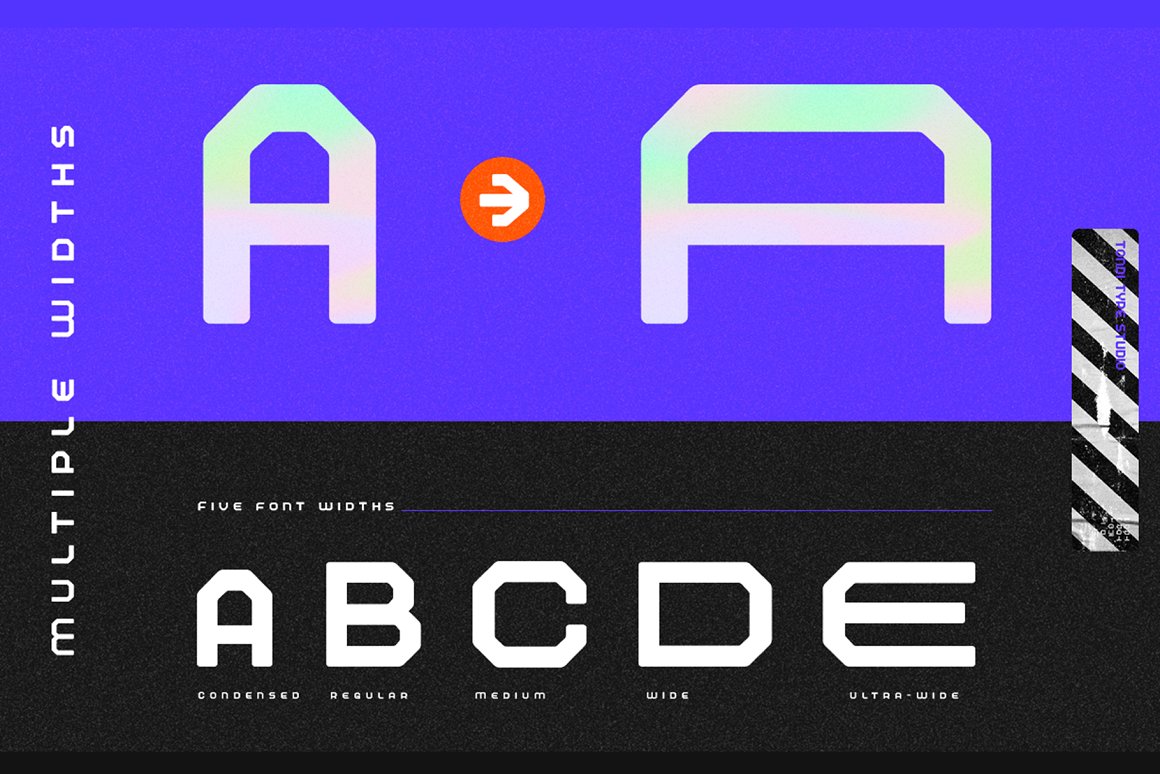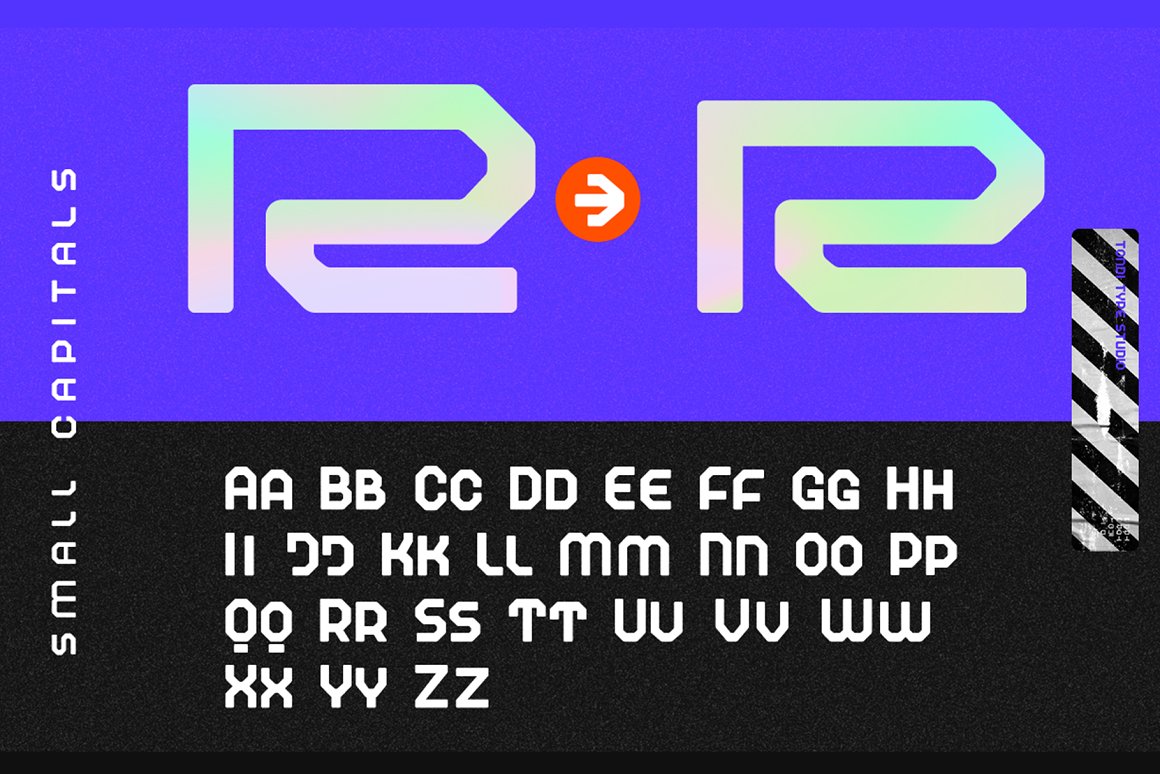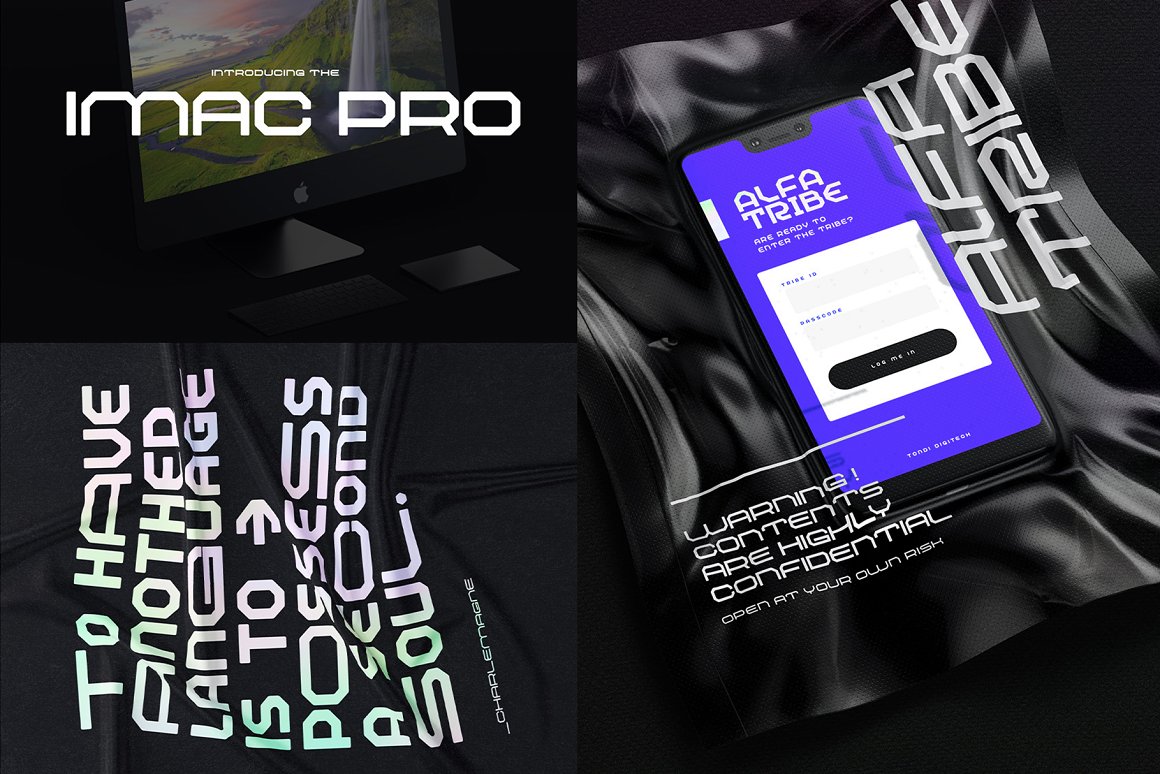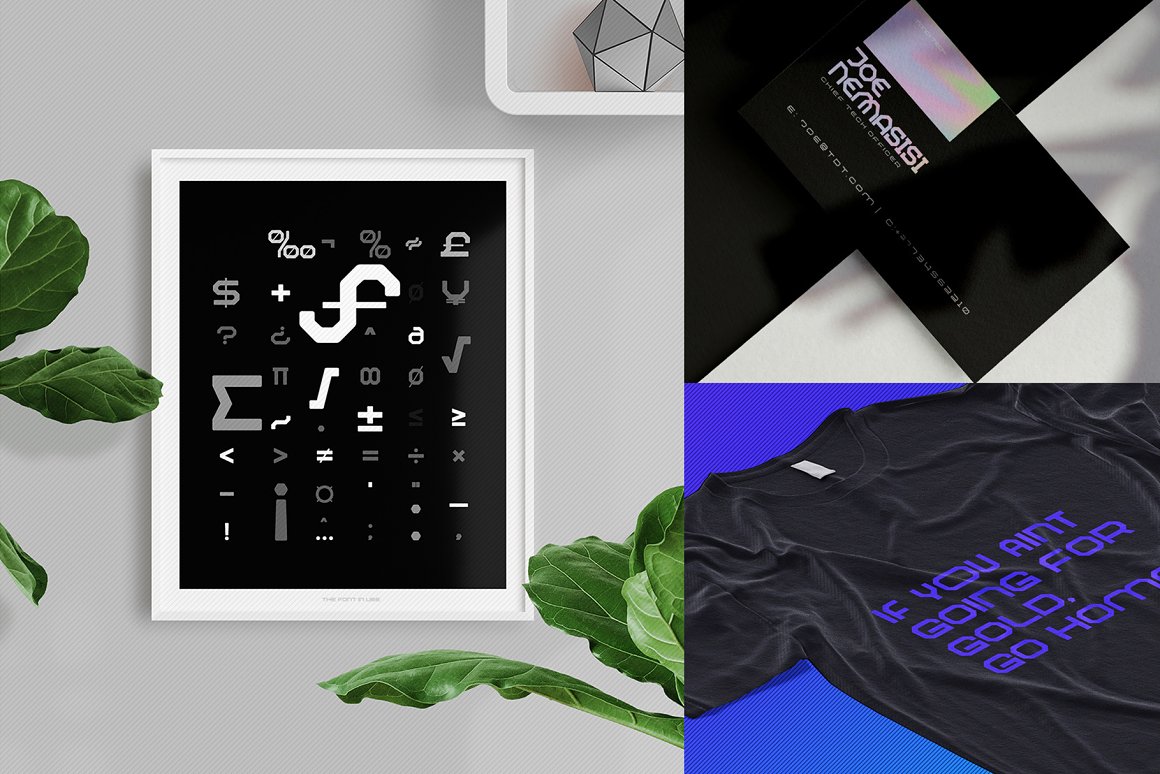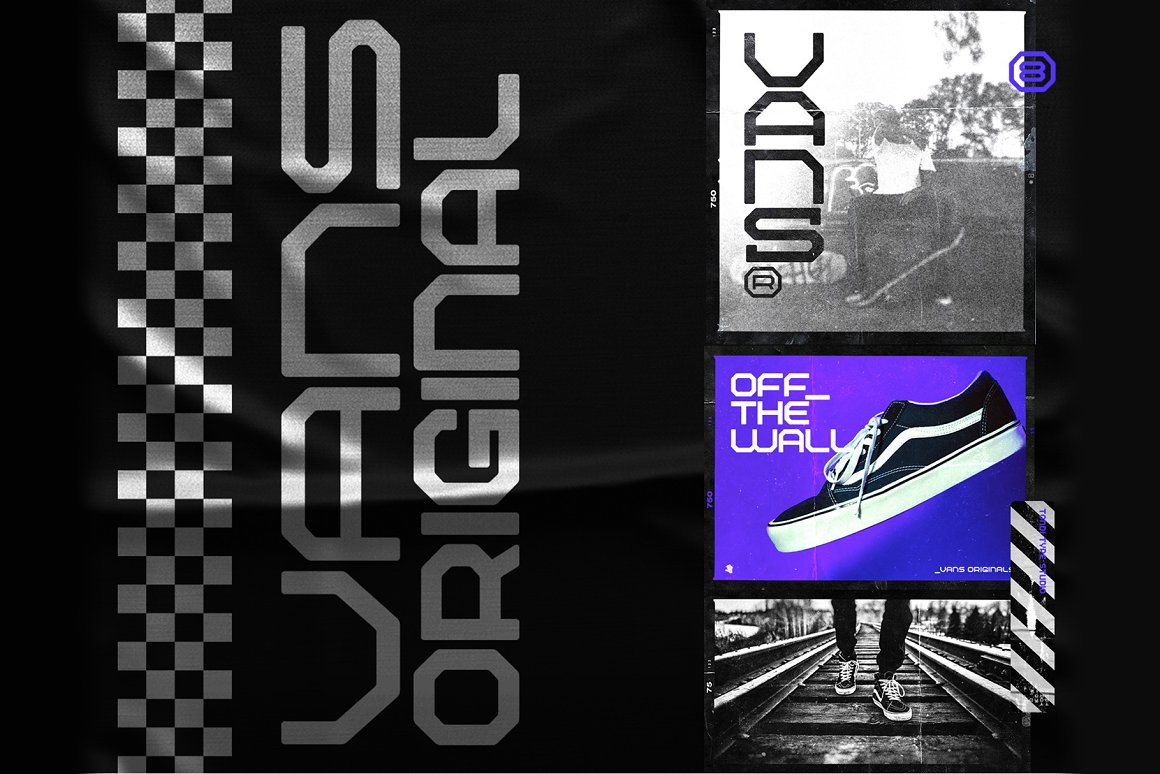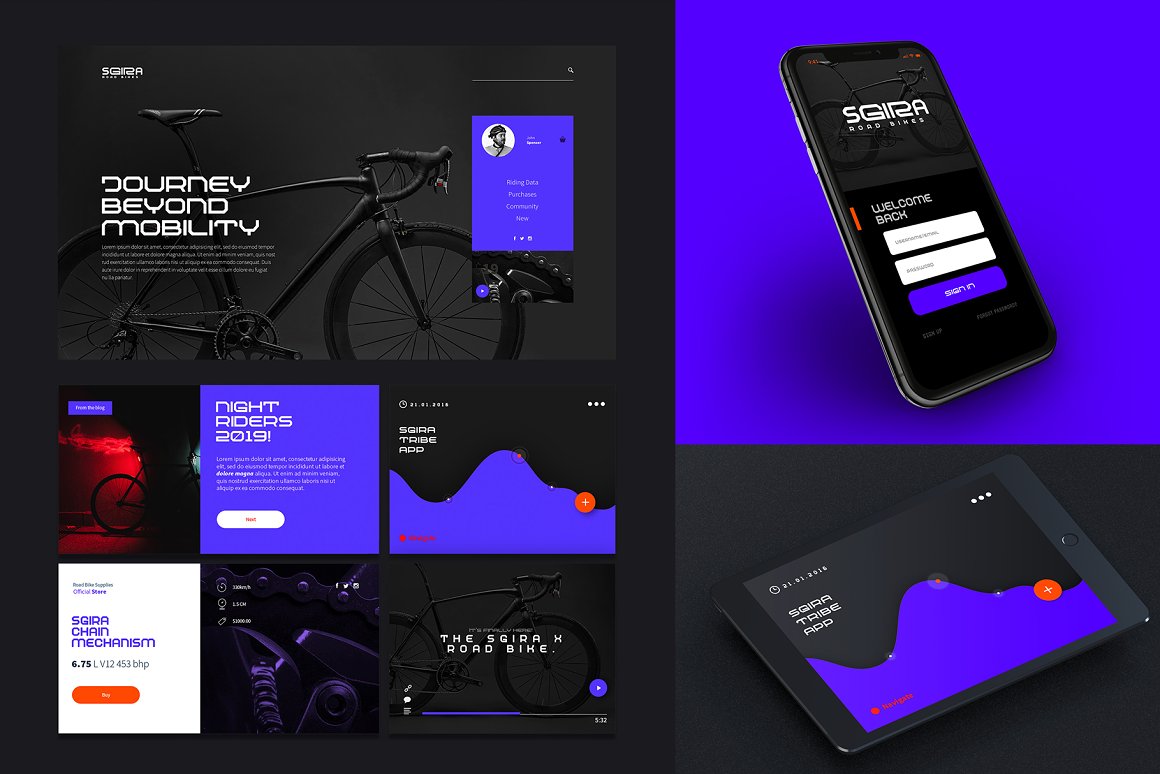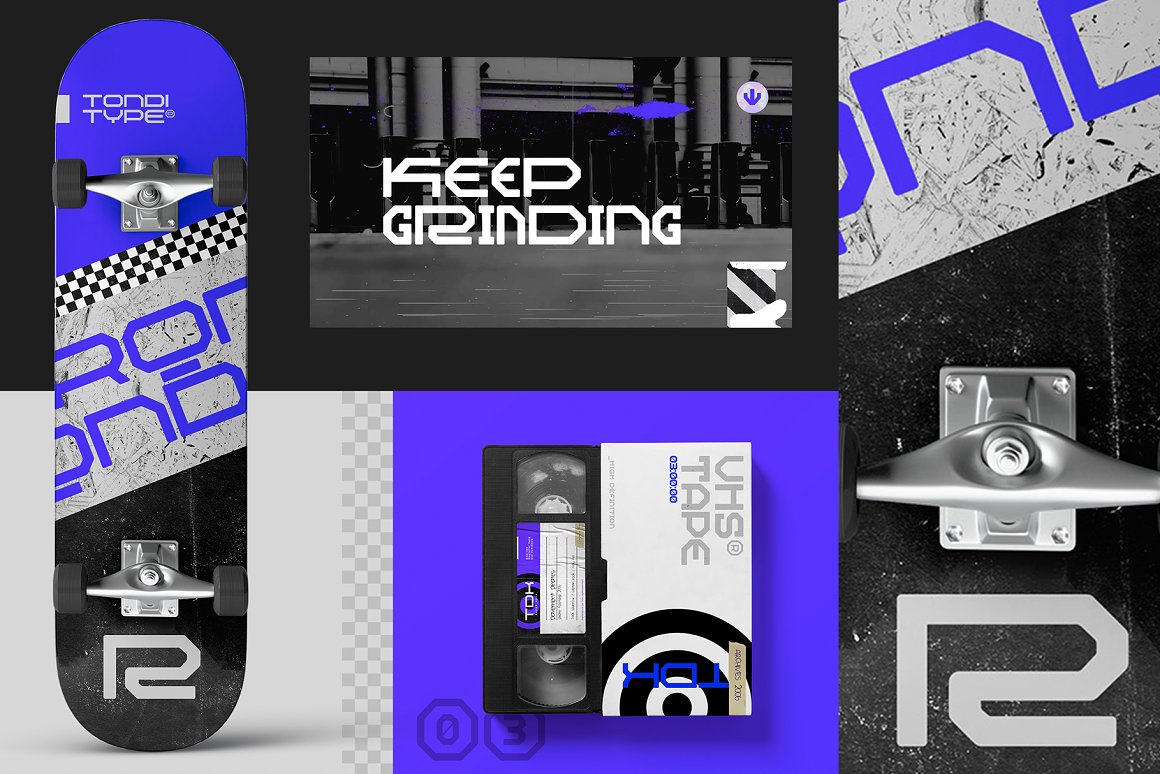
RQND Pro Font Family
Tondi Type Studio presents: RQND Pro
RQND Pro is an industrially inspired sans serif typeface with a casual and approachable appeal. RQND stems from our original typeface Reqnad Geometrik( http://bit.ly/Reqnad ).
This typeface is great for use in headlines for both print and digital layouts. Even though the RQND Pro is inspired by industrial design, which tends to be very cold and machine like, we incorporated smooth and rounded contours to give it a more humanist and approachable appeal.
5 RQND Pro Font Widths:
• Condensed
• Regular
• Medium
• Wide
• Ultra Wide
Support for 28 languages. Namely: Afrikaans | Albanian | Catalan | Croatian | Czech | Danish | Dutch | English | Estonian | Finnish | French | German | Hungarian | Icelandic | Italian | Latvian | Lithuanian | Maltese | Norwegian | Polish | Portugese | Romanian | Slovak | Slovenian | Spanisch | Swedish | Turkish | Zulu